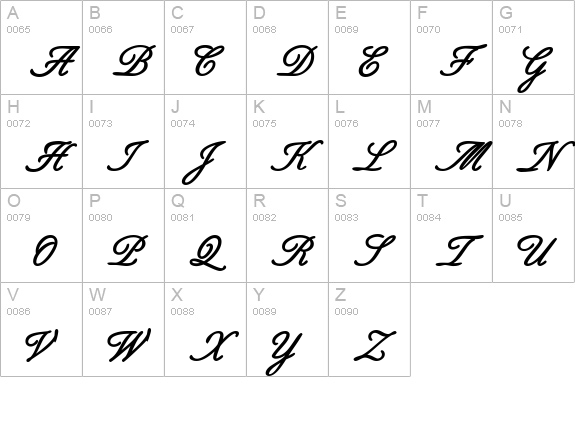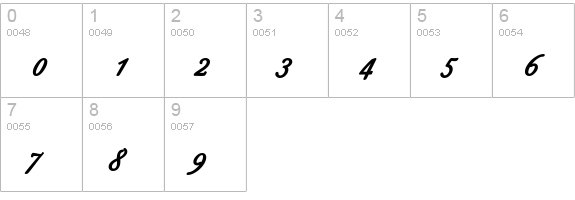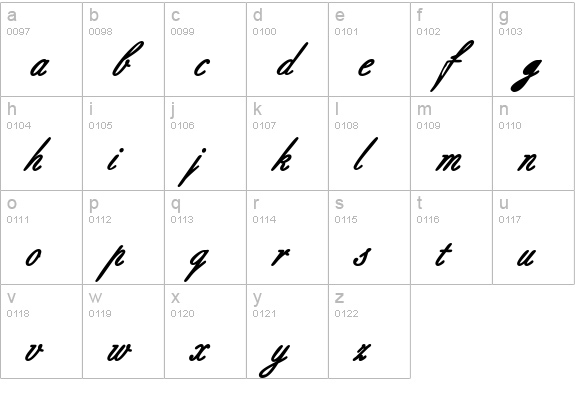
AldridgeScriptSSK Bold Font Details
AldridgeScriptSSK Bold is a strong, high-contrast variant in the AldridgeScriptSSK typeface family \xE2\x80\x94 well suited to headlines, attention-grabbing titles, and strong calls-to-action.
Introducing AldridgeScriptSSK Bold font, a captivating and elegant typeface that exudes sophistication and charm. This font features beautiful, sweeping curves and intricate details that make it perfect for adding a touch of luxury to your designs. Whether you're working on invitations, branding materials, or anything in between, AldridgeScriptSSK Bold font is sure to make a lasting impression. Best of all, AldridgeScriptSSK Bold font is available for free download at FontsMarket.com. Now you can elevate your projects with this stunning font without breaking the bank. Don't miss out on the opportunity to enhance your designs with the timeless beauty of AldridgeScriptSSK Bold font today!